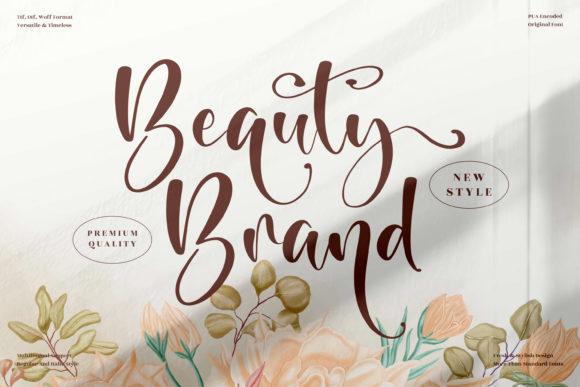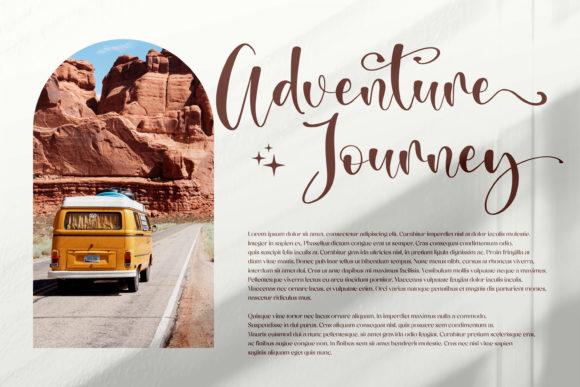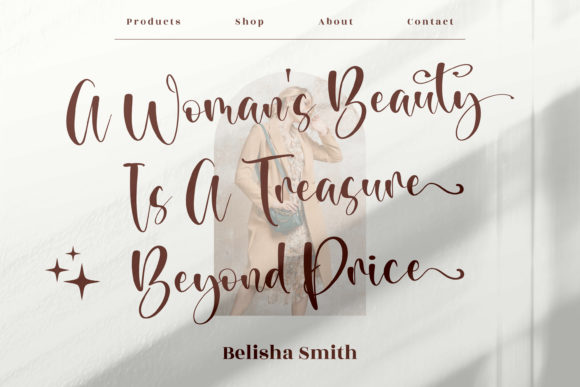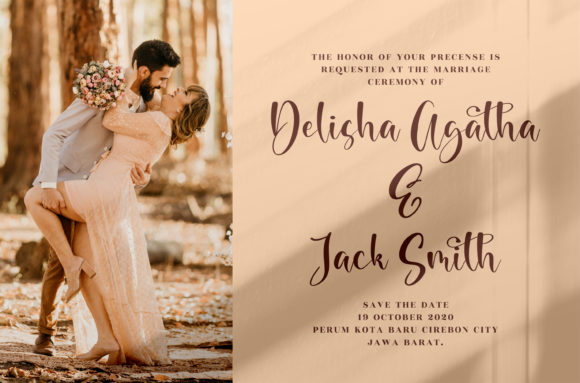
Beauty Brand Font
Beauty Brand is a lovely and timeless handwritten font. It is the best choice for creating eye catching logos, branding and quotes. Beauty Brand is PUA encoded which means you can access all of the glyphs and swashes with ease!